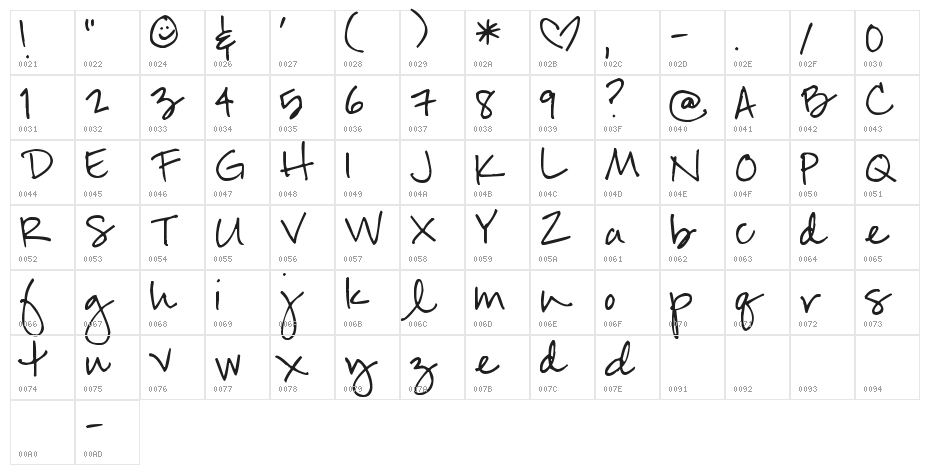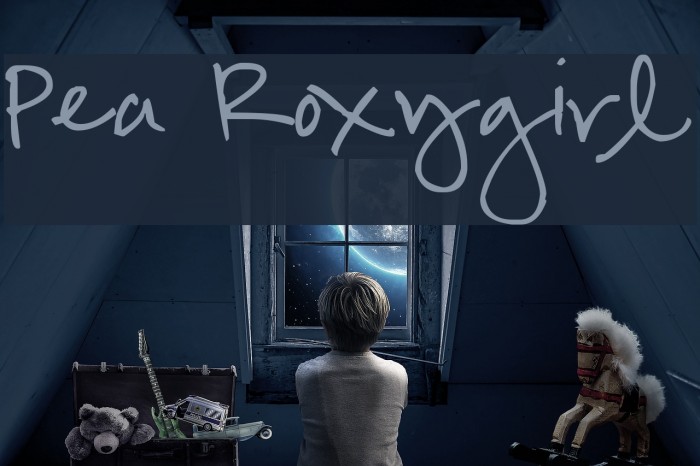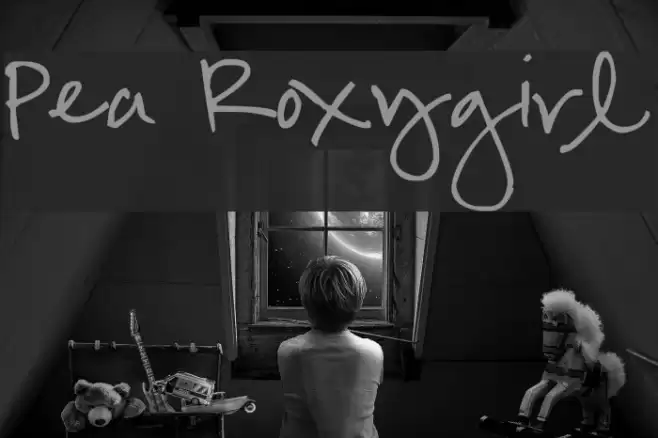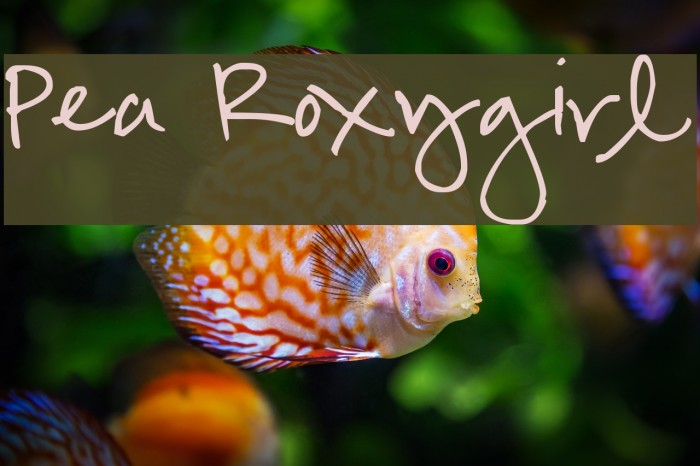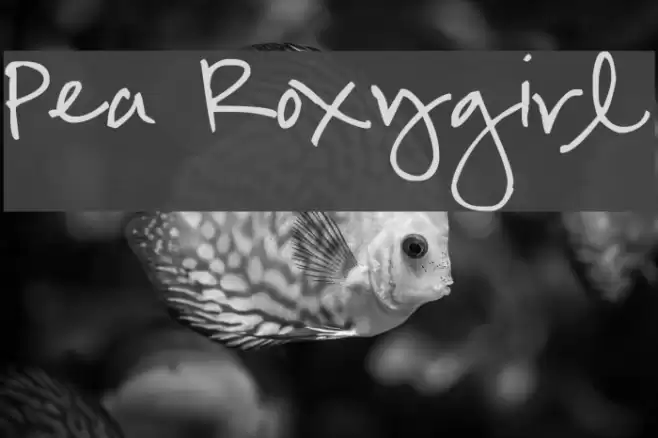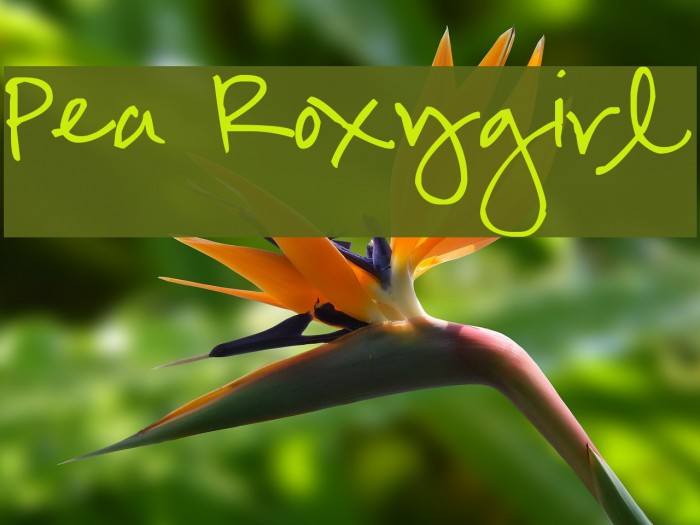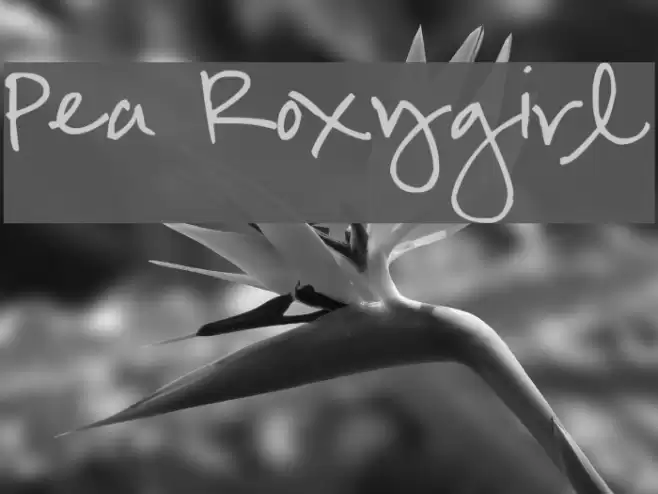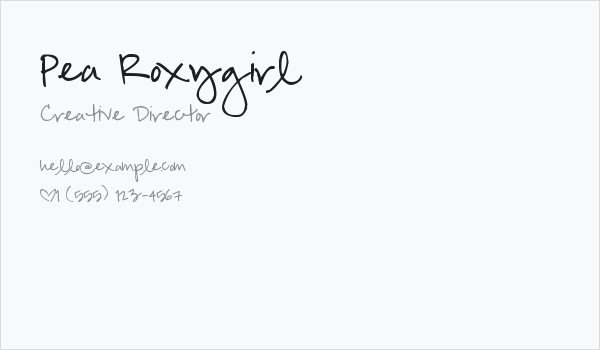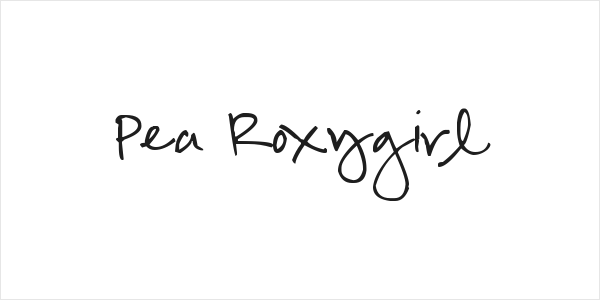
Pea Roxygirl Font
Pea Roxygirl Description
This font exudes a playful and casual handwritten style, characterized by its loose and flowing strokes. The letters are slightly slanted, giving it a dynamic and lively appearance. The uppercase and lowercase letters maintain a consistent style, with a natural and spontaneous feel. The numbers and special characters are equally expressive, adding to the font's overall charm. This font is perfect for projects that require a personal touch, such as greeting cards, invitations, or informal branding. Its whimsical nature makes it suitable for creative and artistic endeavors.
| Use Case | Logos, Headlines, Informal text |
| Proposed Projects | Greeting cards, invitations, informal branding, creative projects. |